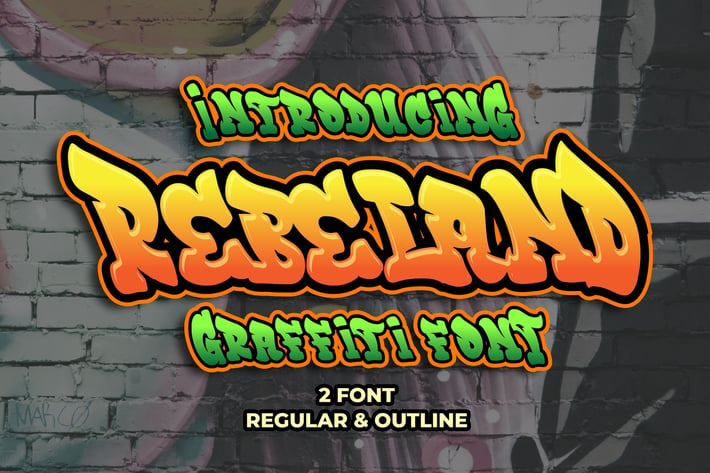
Rebeland - Graffiti Font
Introducing of our new product the name is Rebeland Graffiti Font. Rebeland inspired by graffiti style with a fun theme very good for graffity poster, Hip Hop music, kids poster, flyer, childrenbook, cartoon, comic etc